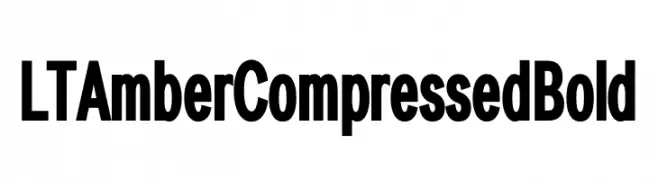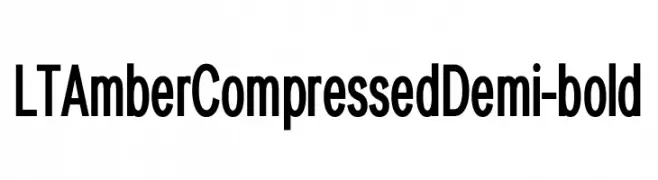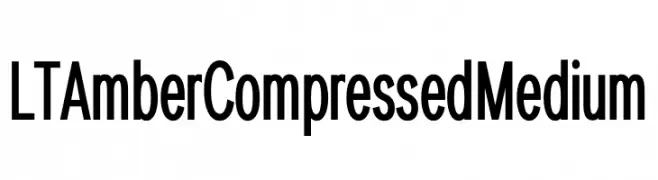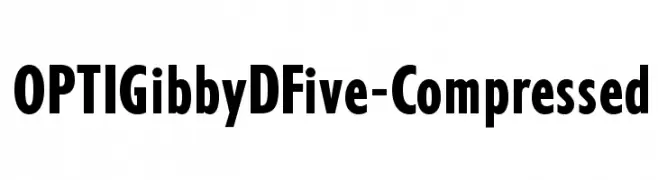
• LT Amber Compressed Bold
A bold, compressed font perfect for impactful headlines.
• LT Amber Compressed Demi-bold
A bold, compressed font with a modern and impactful style.
• LT Amber Compressed Light
A modern, compressed sans-serif font with a light weight and minimal contrast.
• LT Amber Compressed Medium
A bold, compressed font with a modern and sleek design.
• OPTIGibbyDFive-Compressed
A bold, modern font with thick strokes and geometric shapes.
• OPTIValleyForge-Compressed
A bold, high-contrast serif font with vintage charm and modern elegance.
• PF Tempesta Five Compressed
A bold, pixelated font with a retro digital aesthetic.
• PF Tempesta Five Compressed Bold
A bold, compressed, pixelated font with a modern digital aesthetic.
• PF Tempesta Seven Compressed
A bold, pixelated font with a retro digital style.
• PF Tempesta Seven Compressed Bold
A bold, compressed font with a geometric and robust design.